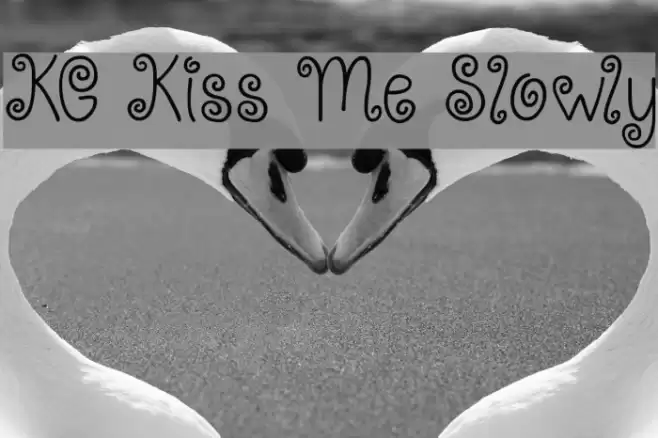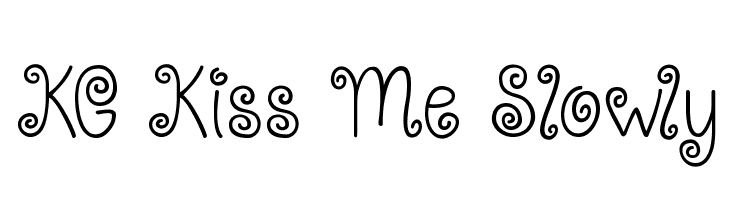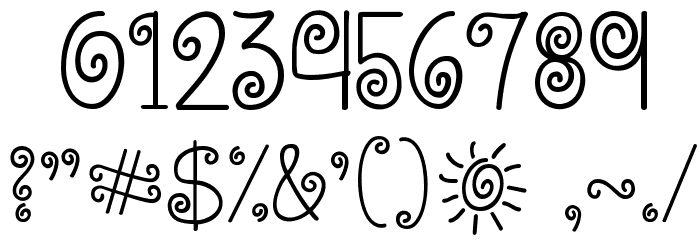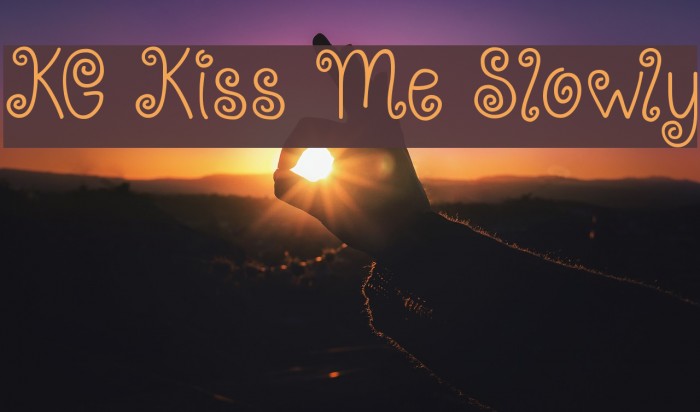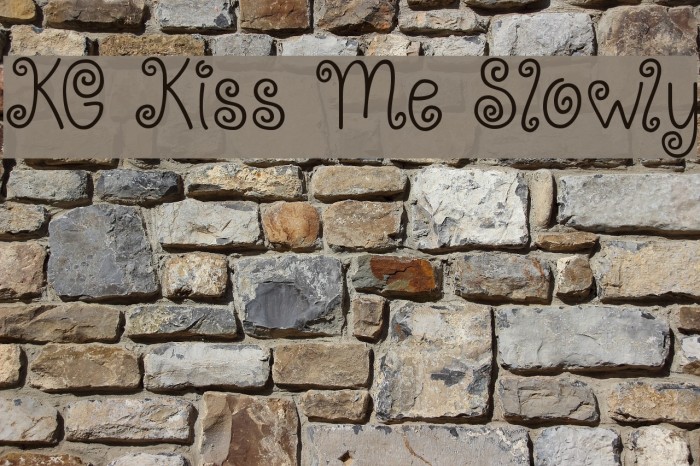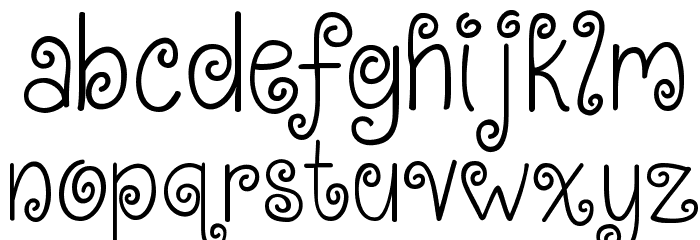
KG Kiss Me Slowly Font
KG Kiss Me Slowly Description
This playful and whimsical font features a unique, curly design that adds a touch of fun and creativity to any project. Each character is adorned with decorative swirls and loops, giving it a lively and animated appearance. The uppercase letters are bold and prominent, while the lowercase letters maintain a consistent style with slightly more subtle embellishments. Numbers and special characters are equally expressive, maintaining the font's overall cheerful and dynamic aesthetic. The font's distinctive style makes it ideal for projects that require a touch of personality and flair.
A whimsical, curly font with playful swirls and loops from Uncategorized fonts.
- Proposed Projects: Ideal for children's books, greeting cards, playful branding, and creative invitations.
- Overall Style: Playful, Whimsical
- Use Case: Headlines, Logos, Decorative text